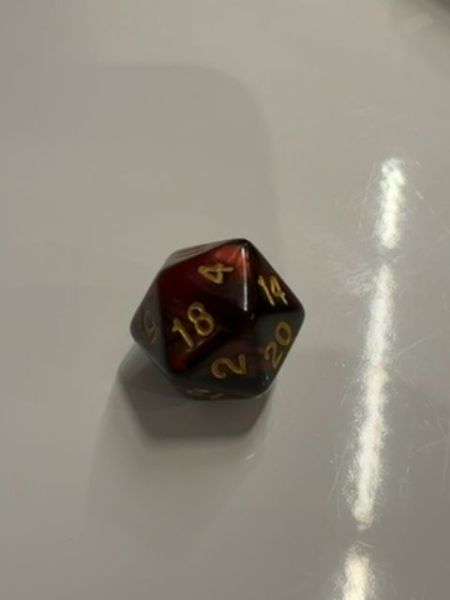
20-Sided Dice (D20)
A twenty-sided dice used primarily in tabletop role-playing games such as Dungeons & Dragons to determine the outcome of events.
1974
The numbers on the die are imprinted using a bold and legible serif font, likely chosen for its clarity and ease of readability during gameplay. The gold coloring of the numbers contrasts sharply against the dark marbled background, which enhances visibility and adds an elegant touch to the overall design.
The dice itself is not shown in typical packaging but rather as a standalone object. It features a blend of dark and red marbling with gold numbering, conveying a sense of mystery and adventure.
- The D20 is a staple in many tabletop RPGs.
- It is often used to resolve actions in games through random number generation.
- The modern D20 design became popular with the game Dungeons & Dragons in the 1970s.